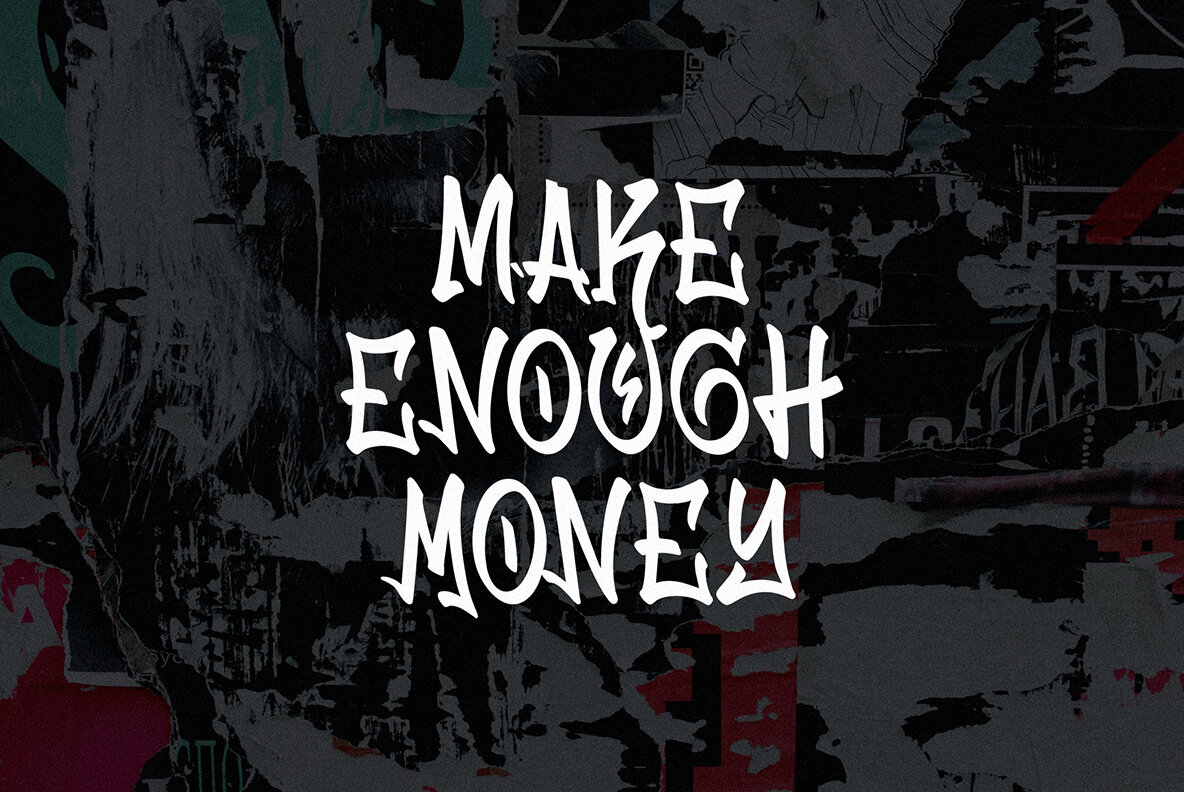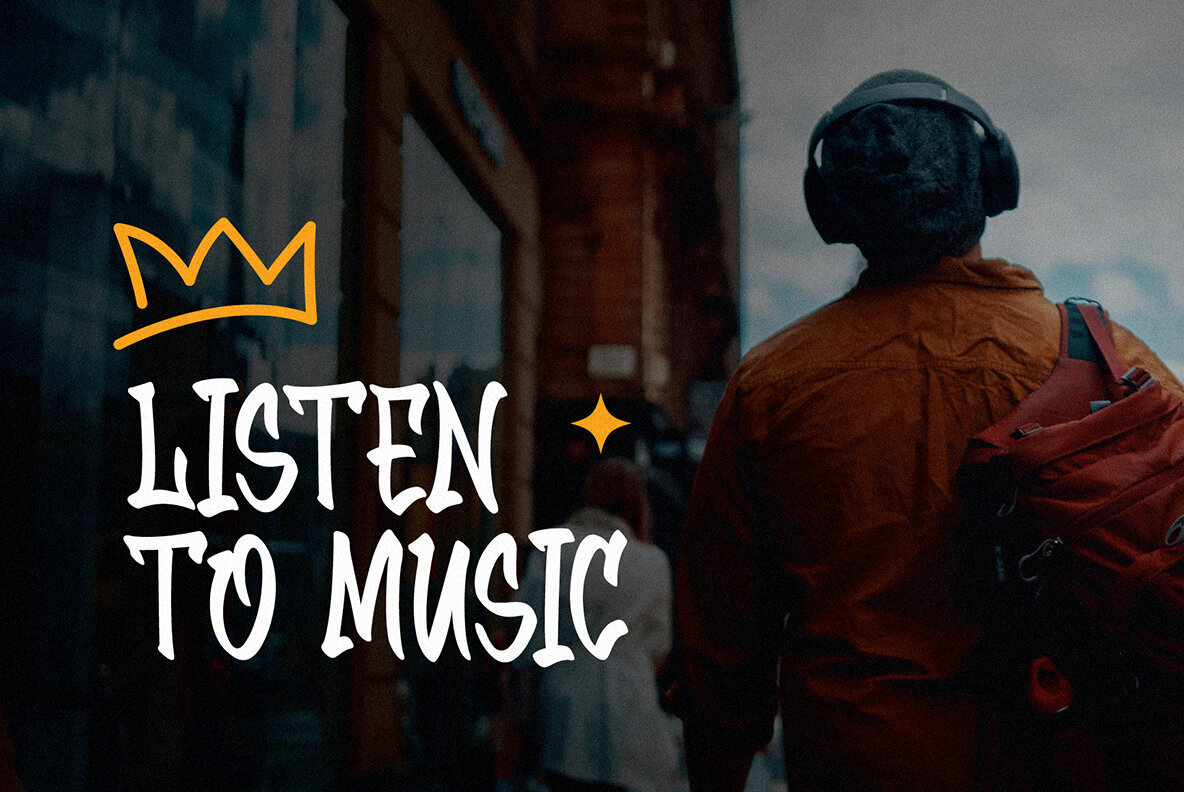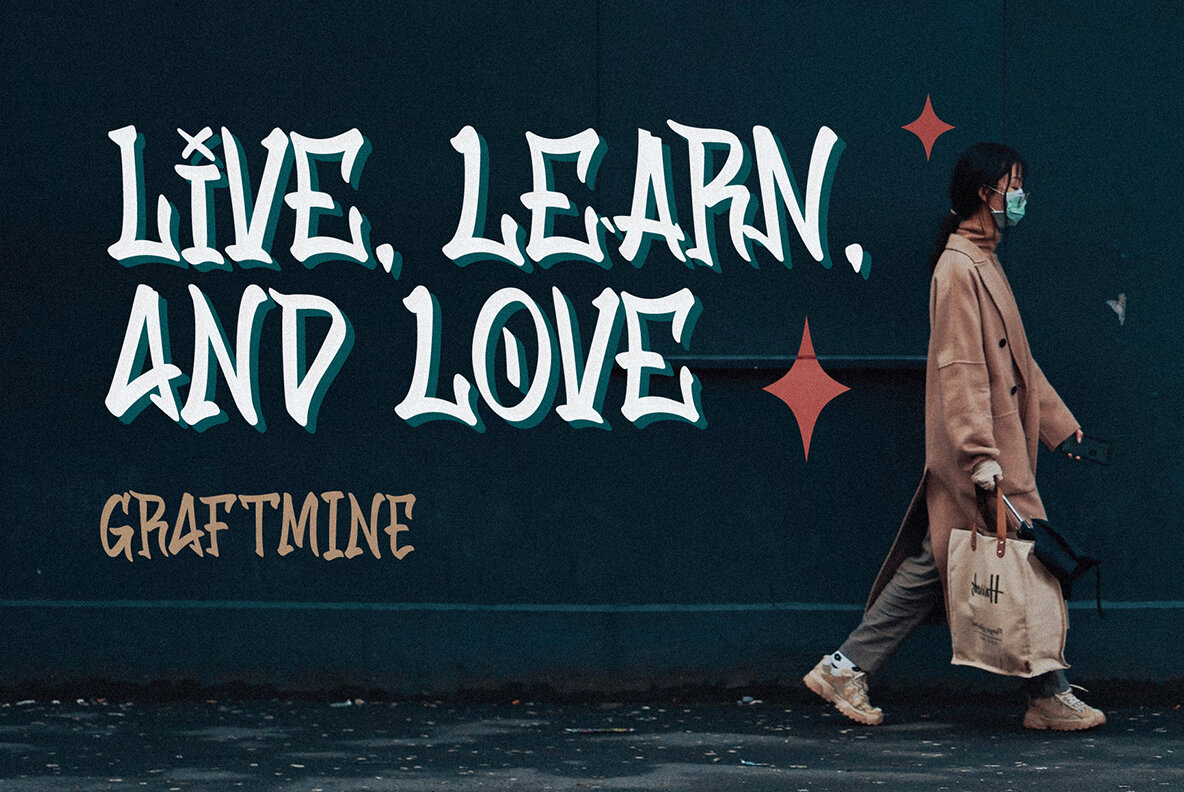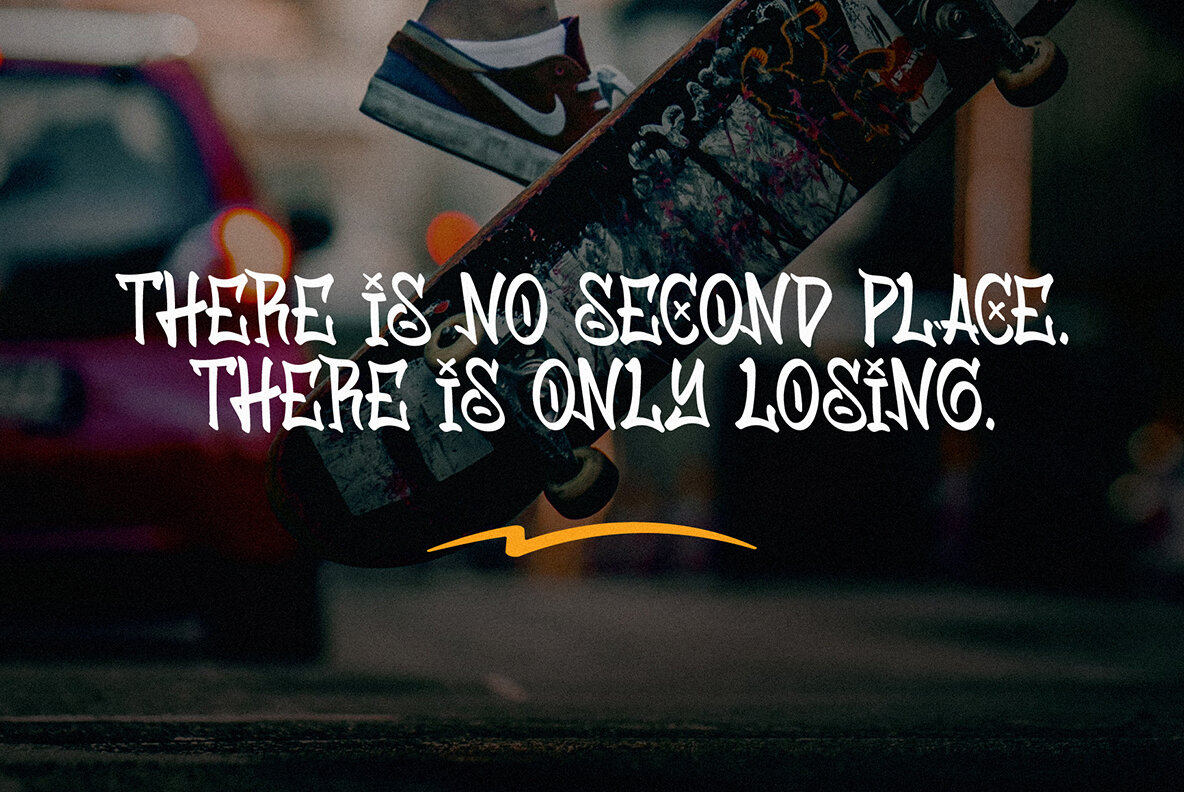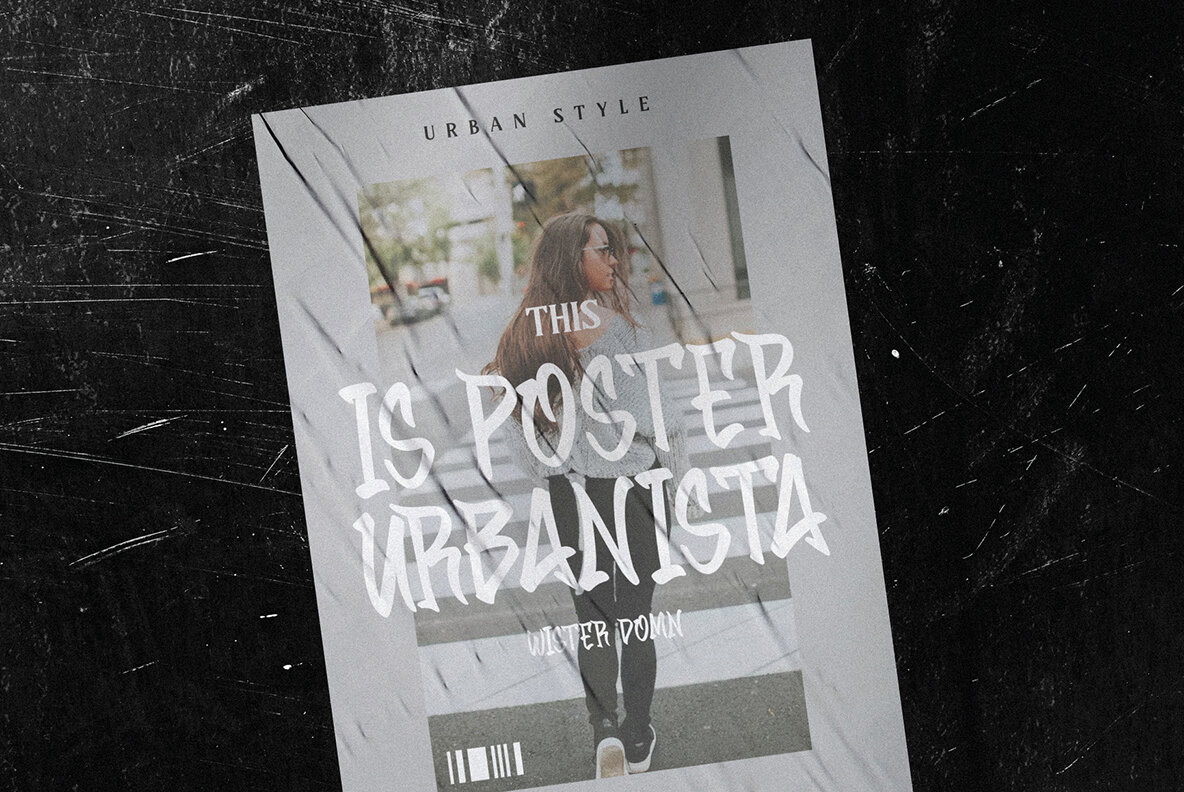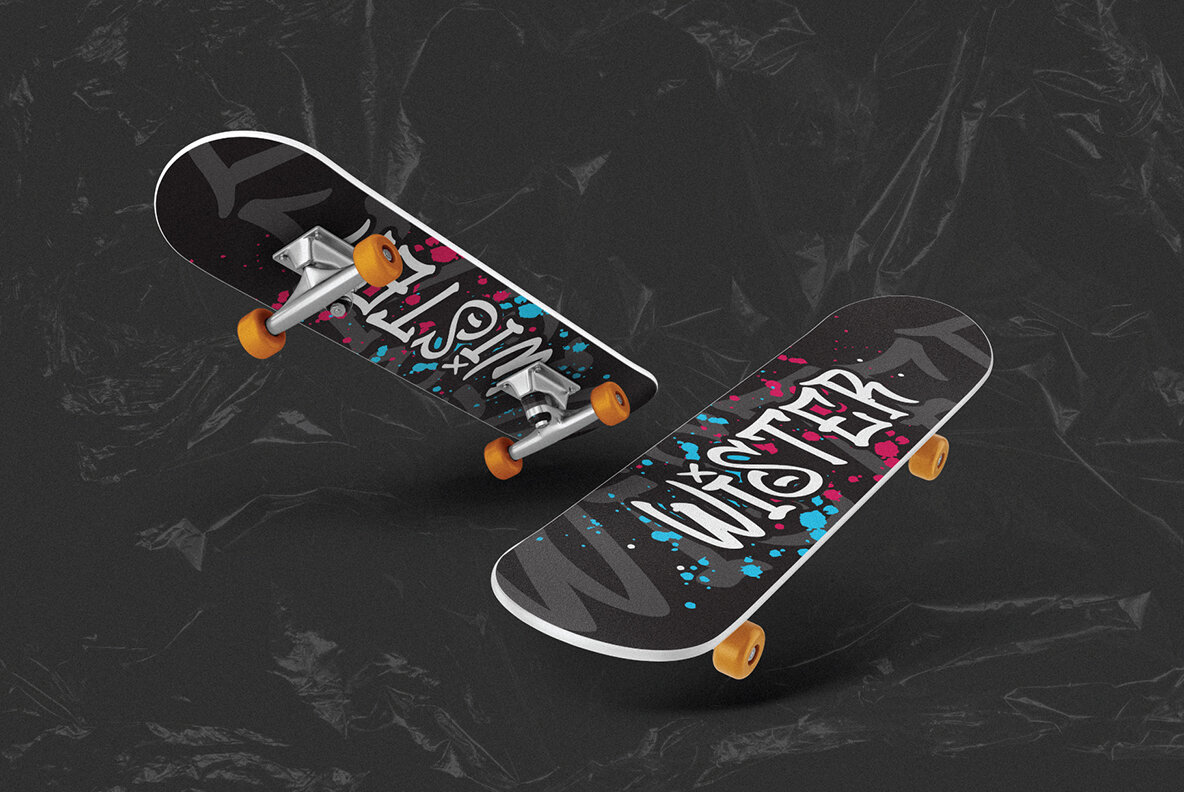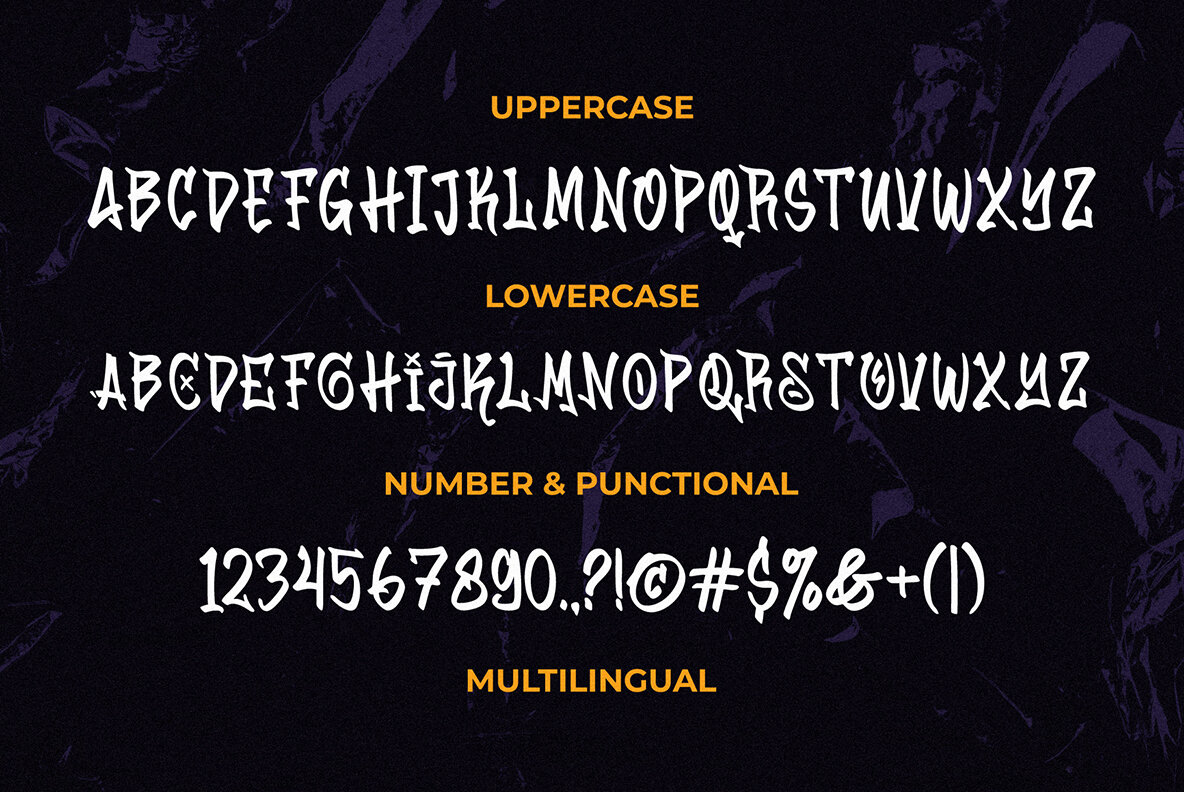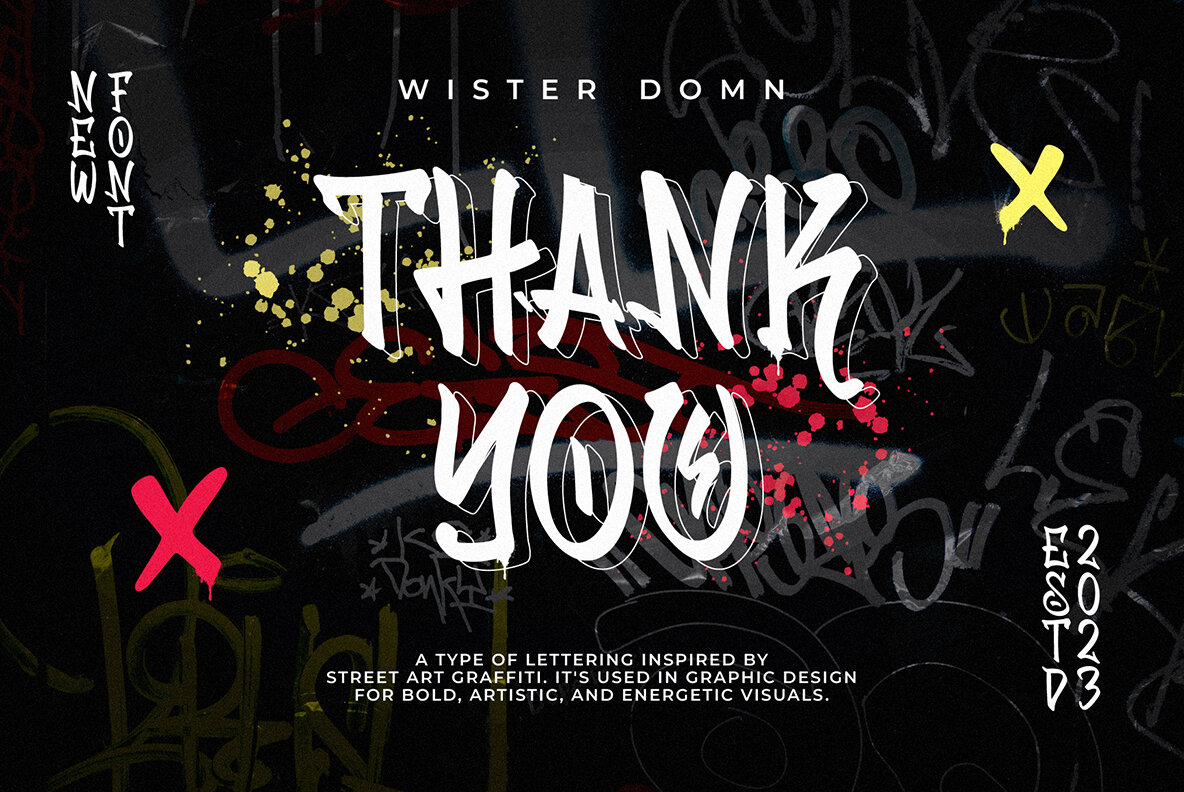
Wister Domn Font
Wister Domn Regular
Infuse your creative projects with the gritty energy of urban streets using Wister Domn. This distinctive font captures the raw power of graffiti, bringing its vibrant spirit directly to your designs. Let your creativity soar as you utilize the bold, edgy style of Wister Domn. This all-caps font is ideal for a variety of applications, from magazine layouts and promotional content to eye-catching posters and merchandise designs. Captivate your audience with the authentic charm of urban graffiti. Wister Domn embodies street art culture, granting your designs a rebellious edge that ensures your message leaves a lasting impression. Break boundaries with Wister Domn's full multilingual support. Whether reaching a local community or a global market, this font ensures your creative voice is heard worldwide. More than just a font, Wister Domn is a statement, a story, and an attitude. Elevate your projects with this graffiti-inspired masterpiece and leave a mark that's unmistakably bold.Wister Domn: Graffiti-Inspired Font for Creative Impact
Unleash Your Imagination
Urban Vibes, Everywhere
Multilingual Mastery